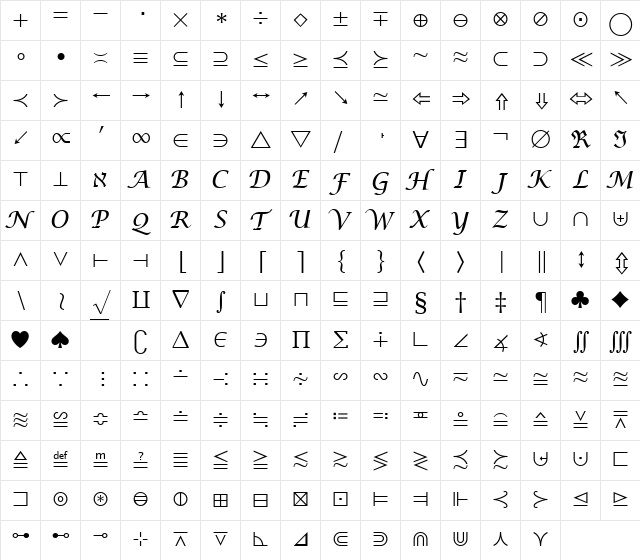
Lucida Bright Math Symbol Regular
Complete Lucida Bright Math Symbol Regular glyph index. Displaying only characters natively supported by Lucida Bright Math Symbol Regular font.
Design Context for Lucida Bright Math Symbol
Lucida Bright Math Symbol is a composed and adaptable typeface that performs quietly and consistently across a wide range of design contexts.